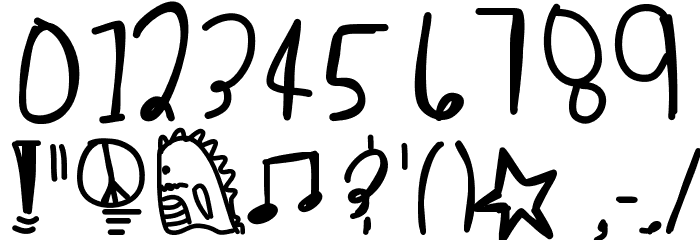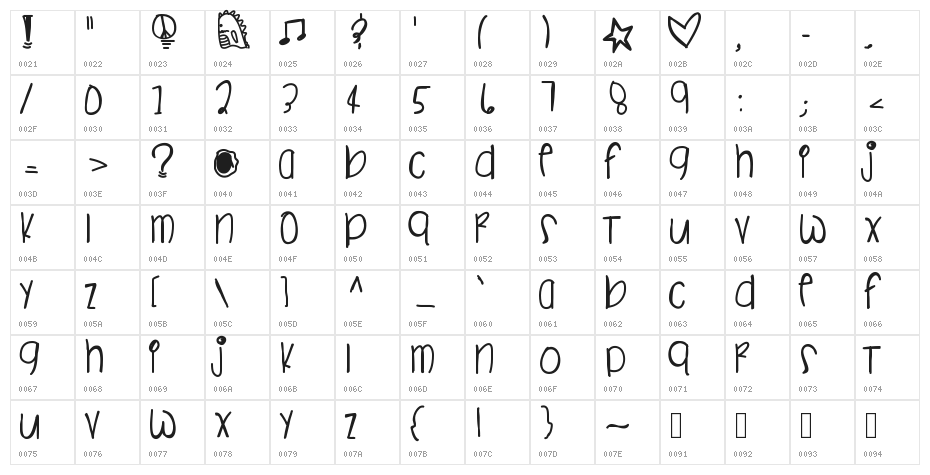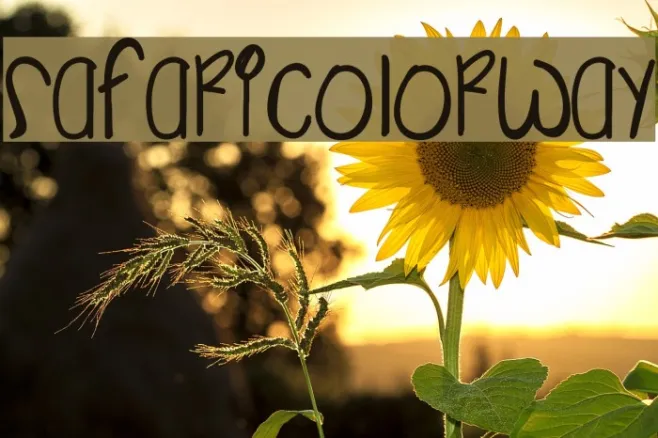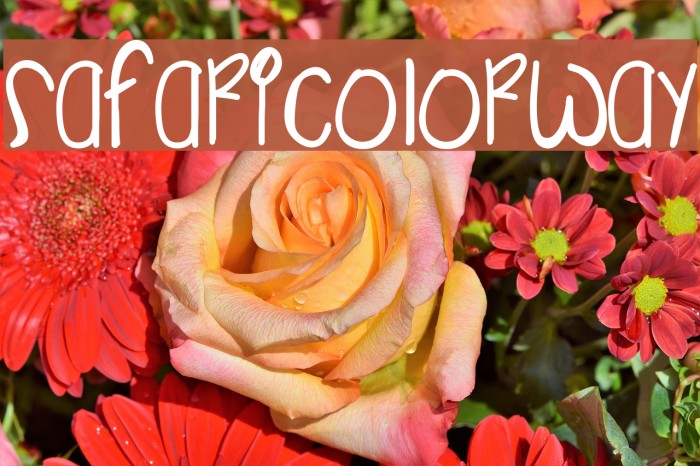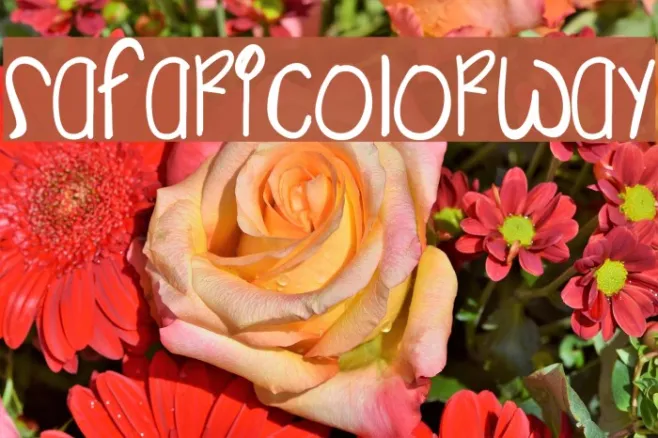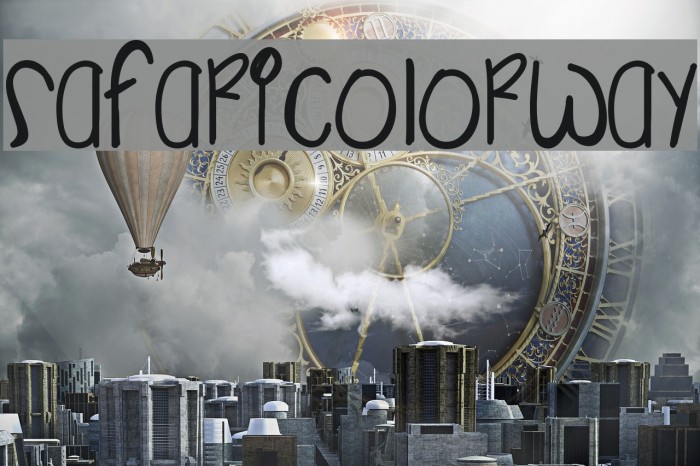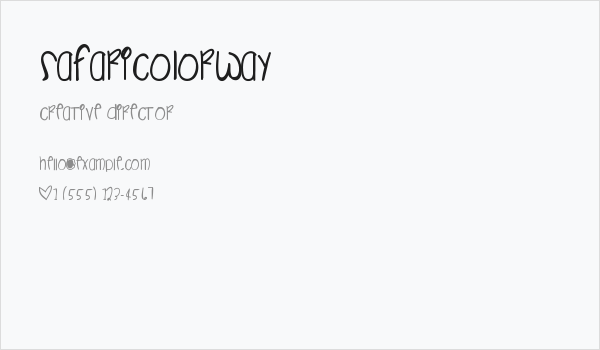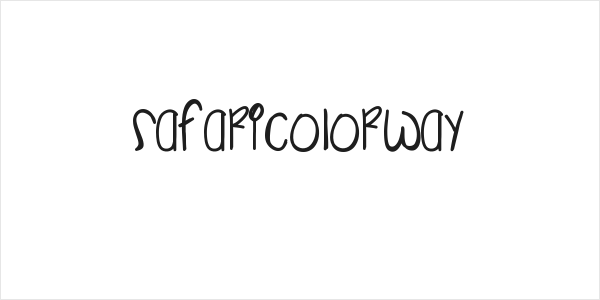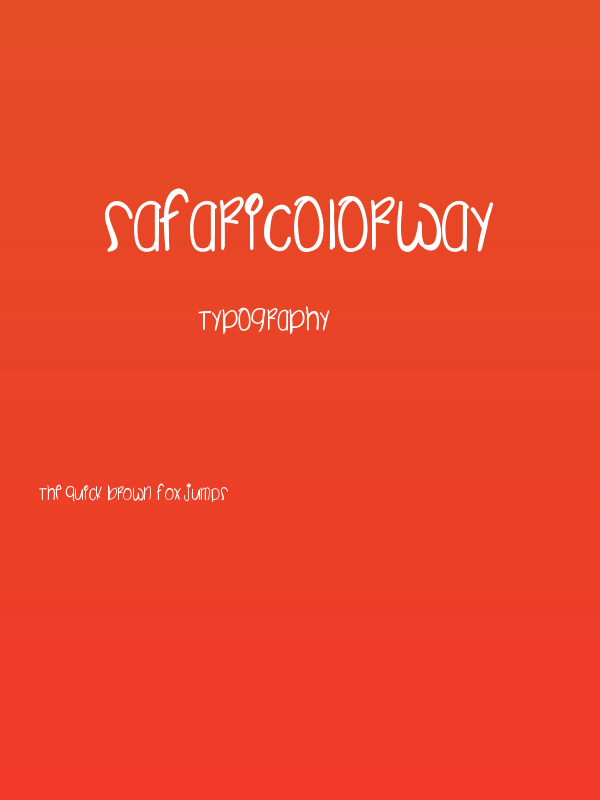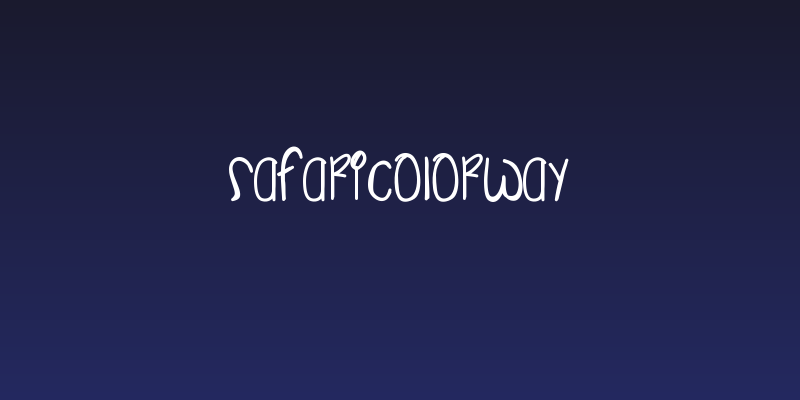
SafariColorway Font
SafariColorway Description
This playful and whimsical font features a handwritten style with a casual, friendly appearance. The letters are characterized by their irregular shapes and varying stroke thickness, giving them a lively and dynamic feel. The uppercase and lowercase letters maintain a consistent style, with rounded edges and a slightly tilted orientation. The numbers and special characters follow the same playful design, adding to the font's overall charm. This font is perfect for projects that require a fun and informal touch, such as children's books, greeting cards, or playful branding.
| Proposed Projects | Ideal for children's books, greeting cards, playful branding, and informal designs. |